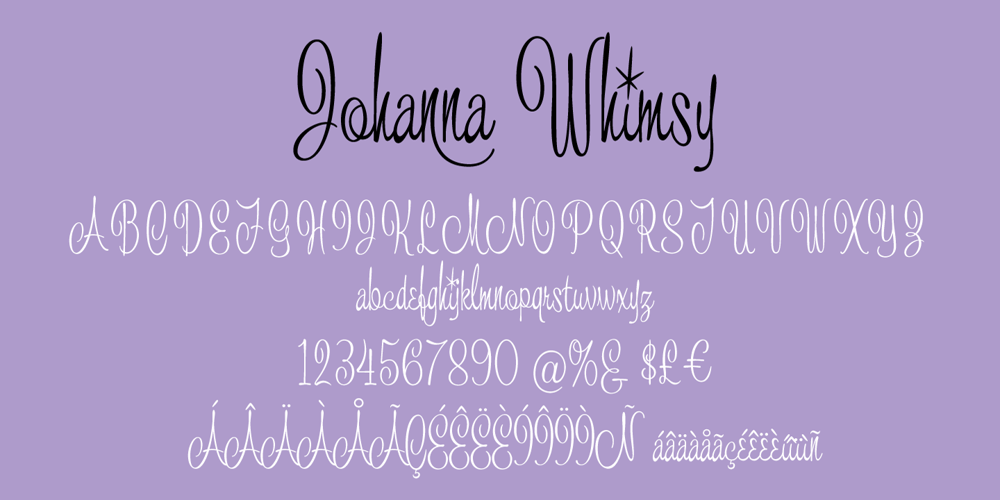
Johanna Whimsy JF
Johanna Whimsy JF font
Johanna Whimsy JF Font Family was designed by Jason Anthony Walcott and published by Jukebox Collection. Johanna Whimsy JF contains 1 styles and family package options. Johanna Whimsy is a fun light-hearted script font that is named after a friend of the designer who is a well known folk artist. The design was inspired by a hand lettered sample from the 1960s and has an engaging mid-century feminine style. The font features alternate versions of the h, i, n and m for some typographic variety. The typeface exudes delight and happiness and is perfect for a variety of designs.